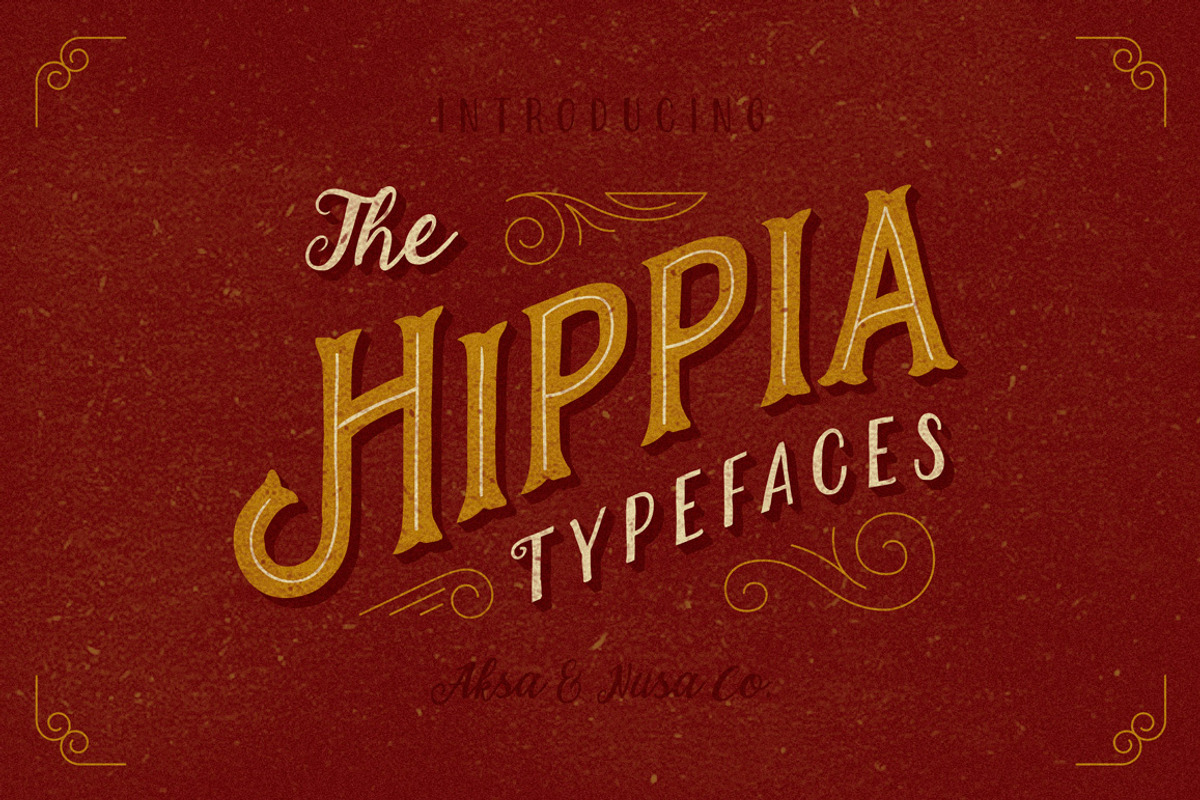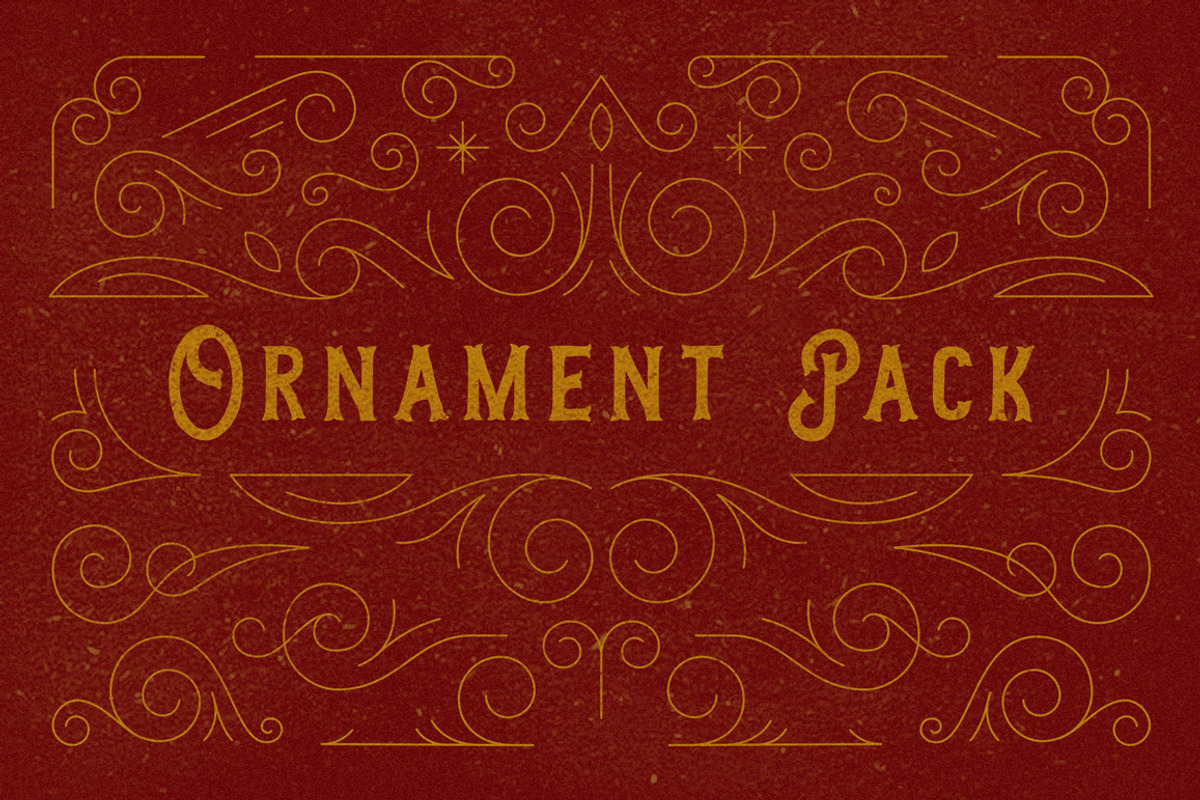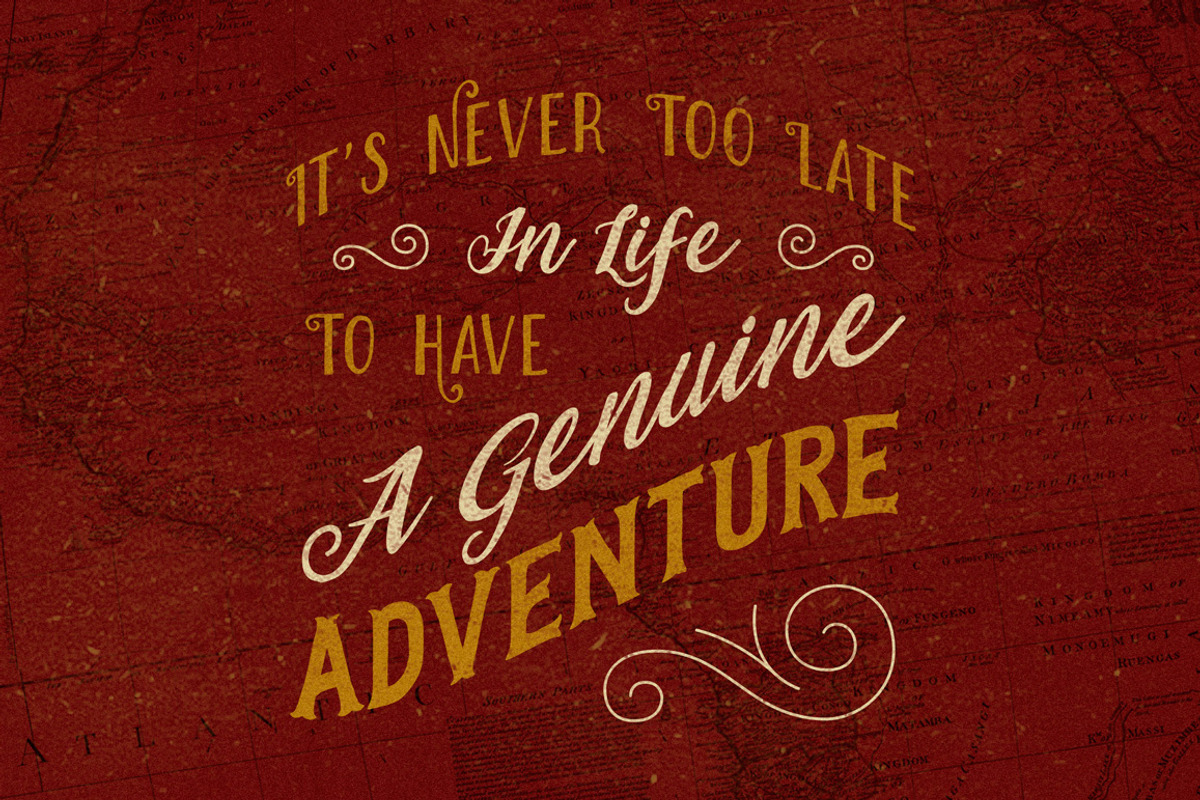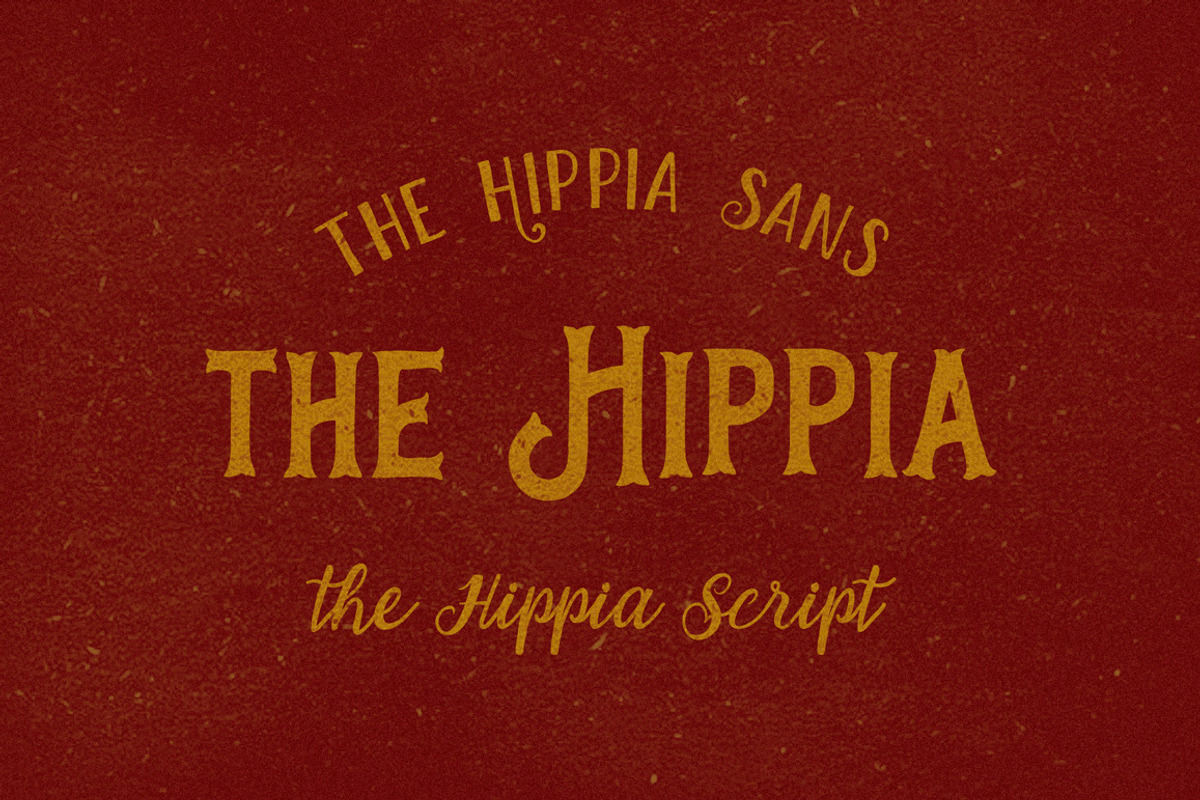
The Hippia Typefaces - 3 Font
Say Hello to The Hippia Typefaces, a set of three handlettering font with handdraw style. Created to complete each other on your work (display, script, and sans serif) Inspired from handlettering poster by various artist and a touch of ornament makes this font look harmoniously and gorgeous.
Perfect for handlettering poster, t-shirt graphics, typography art, apparel, logo design, packaging, labels, and other